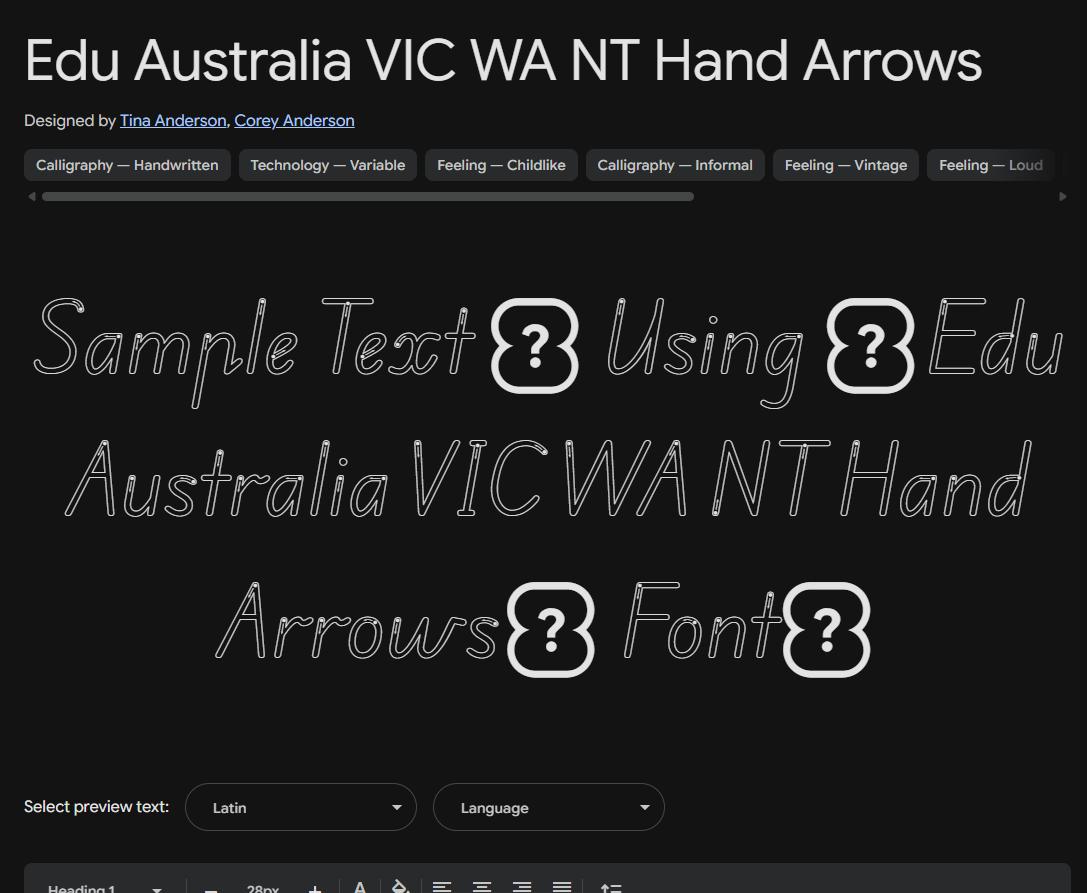
The Edu Australia VIC WA NT Hand Arrows typeface, masterfully engineered by Tina Anderson and Corey Anderson, represents a sophisticated intersection of pedagogic utility and modern digital typography by digitizing the stringent handwriting standards mandated across Victoria, Western Australia, and the Northern Territory. As a single-axis variable font, it provides granular control over stroke weight, ensuring that the directional guide arrows embedded within the glyph architecture maintain optimal legibility and instructional clarity across varying optical sizes. By synthesizing traditional penmanship mechanics with advanced OpenType interpolation, this typeface serves as a critical didactic tool, facilitating the orthographic development of learners through precise stroke sequences and fluid cursive transitions that adhere to specific regional curricular requirements.
The Edu Australia VIC WA NT Hand Arrows font family functions as a sophisticated variable typeface that harmonizes rigorous Australian pedagogical standards with a vibrant, informal calligraphic aesthetic. Engineered with a weight axis that allows for fluid interpolation between a delicate, childlike stroke and a loud, rugged presence, this handwritten family captures a playful and active spirit while remaining anchored in vintage educational traditions. By integrating directional arrow glyphs as technical scaffolding for stroke formation, the design facilitates a happy, kinetic learning experience across Victoria, Western Australia, and Northern Territory curricula, blending the tactile charm of organic penmanship with the precision of modern digital font technology to create an atmosphere that is both nostalgically rugged and contemporary in its typographic flexibility.
While the Edu Australia VIC WA NT Hand Arrows typeface, masterfully engineered by Tina and Corey Anderson, serves as a specialized pedagogical instrument for early childhood literacy, its implementation is fundamentally unsuitable for high-stakes legal documentation or luxury brand identities due to its explicit instructional glyph anatomy. By incorporating directional stroke indicators and a cursive skeleton optimized for the Australian Department of Education's handwriting standards, the font lacks the neutral terminal construction and geometric stability required for professional-grade legibility in dense financial prospectuses or technical architectural schematics. In digital environments requiring high-speed information processing, the inherent decorative clutter of the "Hand Arrows" variable axis introduces excessive cognitive load, ultimately compromising the typographic hierarchy and semantic clarity necessary for industrial user interfaces where aesthetic gravitas and unhindered readability are paramount.
This font family encompasses the foundational and cursive styles mandated by education departments in New South Wales, Victoria, Queensland, South Australia, and Tasmania. By incorporating specific glyph variants like the looped 'k' and straight-stemmed 'q', the typeface ensures 100% compliance with regional Australian Curriculum literacy standards.
The directional arrows serve as a visual roadmap for students, indicating the correct stroke order and path for proper letter formation. These integrated vector overlays function as instructional scaffolding, utilizing precise anchor points to demonstrate the entry and exit trajectories required for kinetic learning.
Yes, the family includes a clean version without guide arrows specifically designed for reading materials, assessments, and standard instructional text. Users can switch between guided and unguided styles via OpenType features to maintain consistent x-heights and kerning across diverse classroom resources.
The font is specifically engineered for tracing exercises, featuring dashed and dotted outline styles that allow children to practice pencil control. High-resolution rendering ensures that internal stroke paths remain crisp at large point sizes, facilitating the tactile feedback necessary for developing motor memory.
Every style in the collection includes a comprehensive set of numerals and punctuation marks to support full sentence construction and basic mathematics. The glyph map is fully Unicode-compliant, ensuring that mathematical operators and symbols integrate seamlessly into modern educational software environments.
The typeface is designed with high legibility and balanced proportions, making it ideal for wall posters, alphabet banners, and digital whiteboard displays. Optimized cubic Bézier curves allow for infinite scalability without aliasing, preserving stroke weight consistency even when the font is enlarged beyond 72 points.
The arrows are strategically positioned within the natural side bearings of each character to ensure they do not disrupt the rhythmic flow of the text. Through rigorous kerning pair adjustments, the font metadata ensures that arrow overlays do not increase the horizontal advance width, preventing unwanted layout overflow.
Specific versions within the family utilize advanced joining logic to demonstrate how individual letters transition into continuous cursive script. Using complex GPOS and GSUB tables, the font dynamically renders contextual alternates to create seamless, fluid connections between entry and exit strokes.
This font is fully compatible with digital platforms, allowing developers to embed Australian handwriting standards directly into interactive web and mobile applications. Available in WOFF2 formats, the typeface offers superior compression ratios for rapid loading in EdTech environments while maintaining sub-pixel rendering clarity.
The family offers various weights, including thin, regular, and bold, to provide flexibility for different teaching levels and design requirements. Implementation of variable font technology allows for a fluid weight axis, enabling precise adjustments to stem thickness to meet specific accessibility contrast ratios.